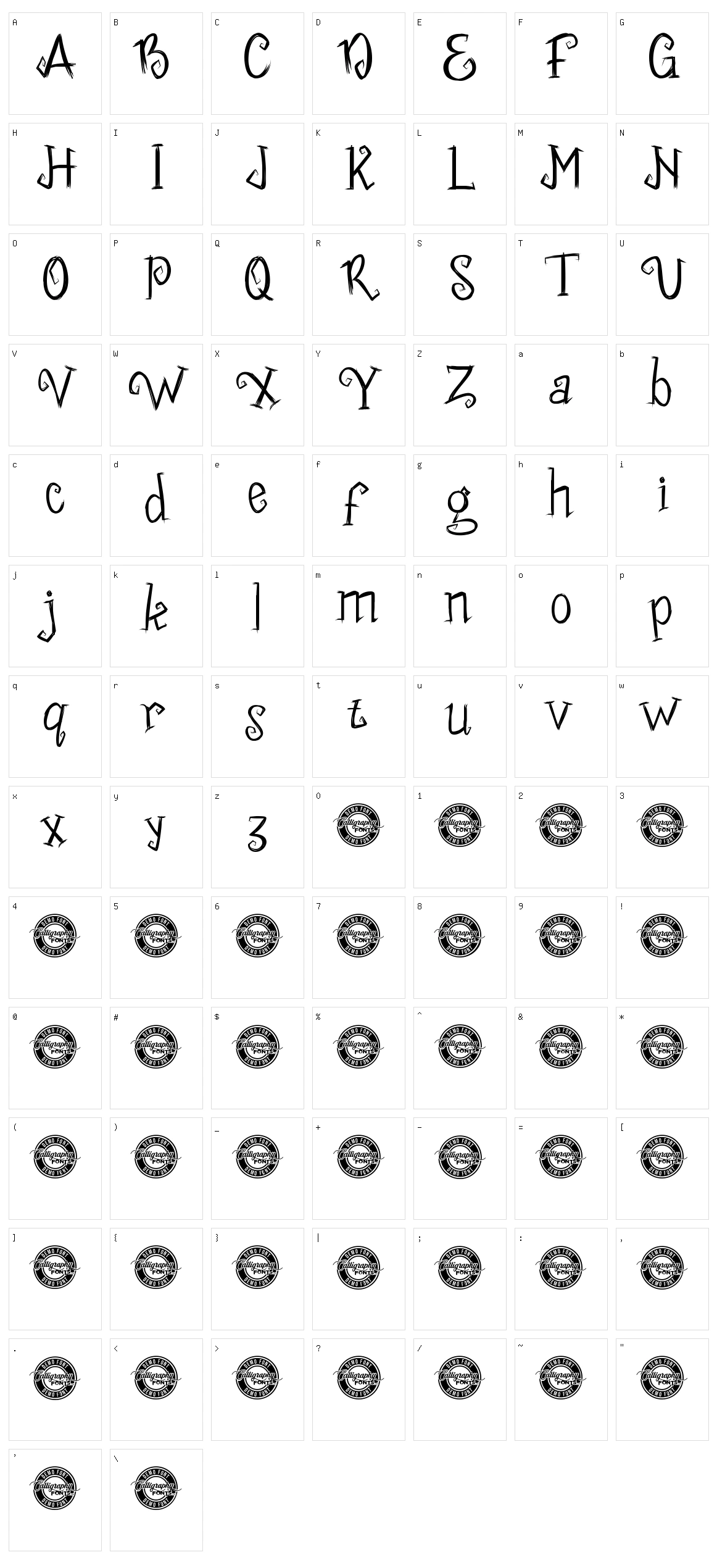
The free font Funny Witches is carefully designed by Calligraphy Fonts, showcasing a thoughtful balance of creativity and usability and falls under the Halloween font style. When you download the ZIP file, it contains only 180.23 KB of font files, making it lightweight and quick to download. Please review the license details below to understand permitted usage and distribution rights. If license information is not available, we recommend using this font for personal projects only or contacting the author directly for commercial usage permissions.